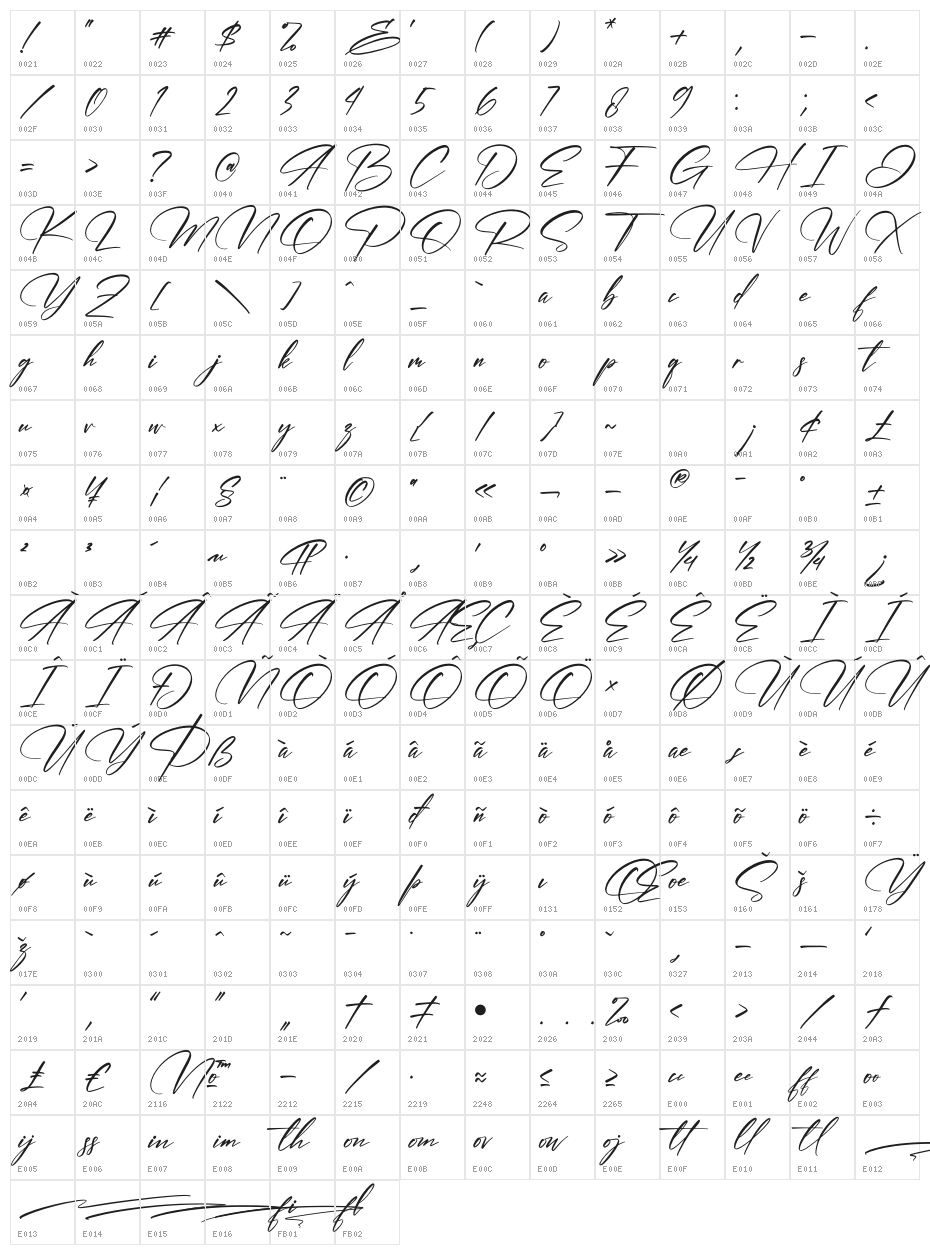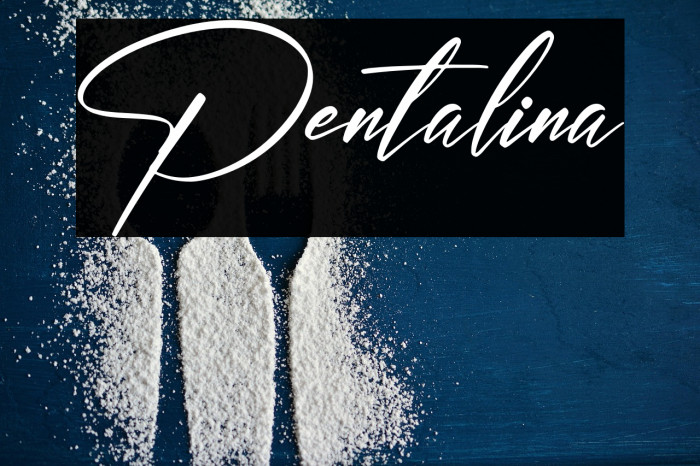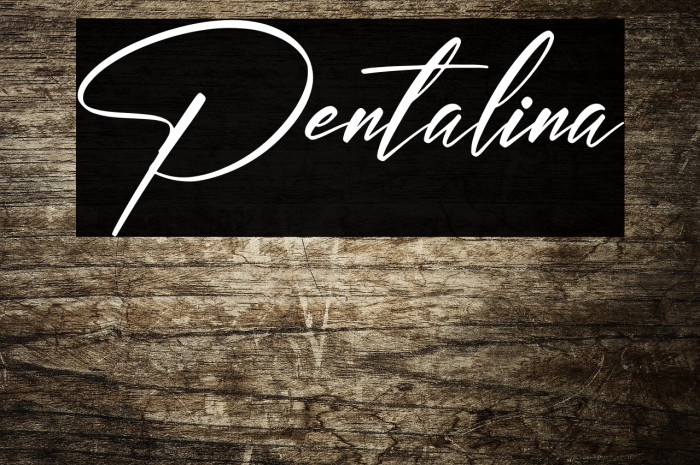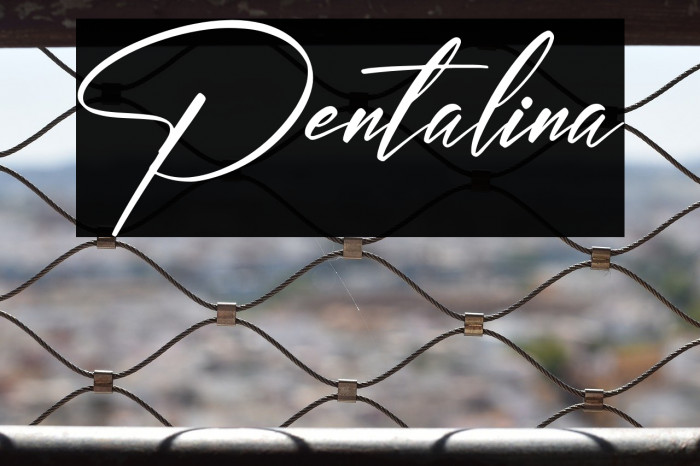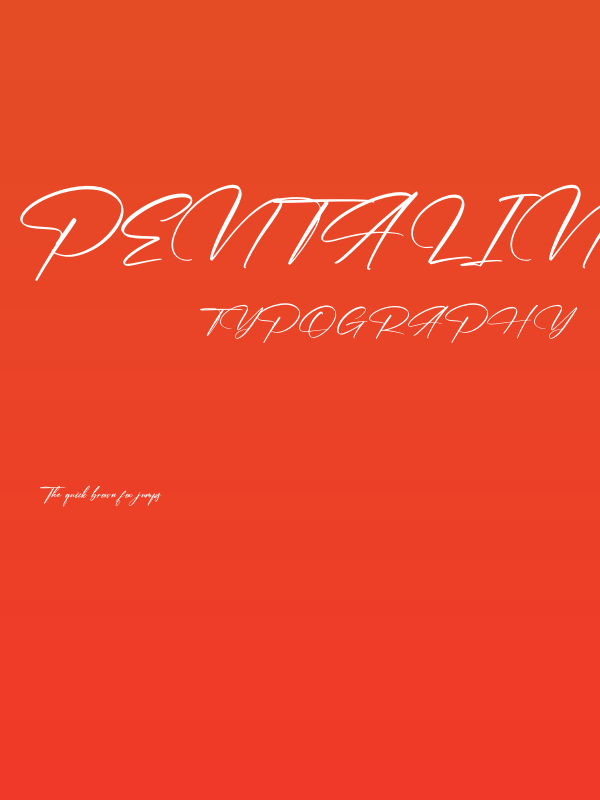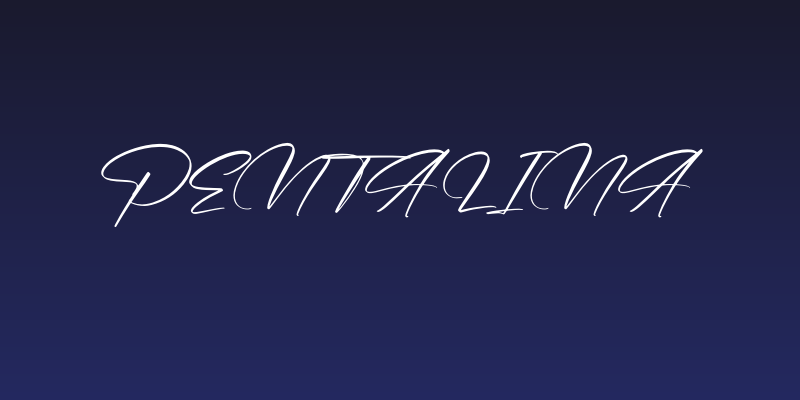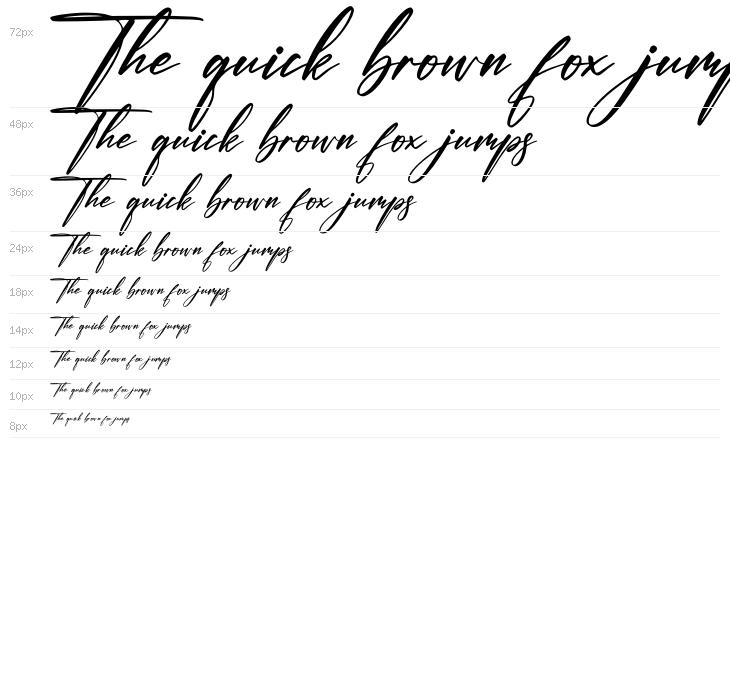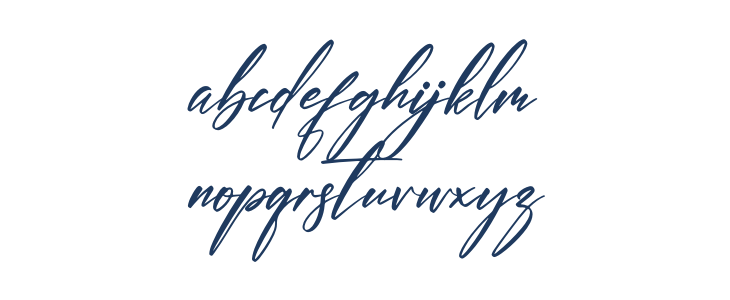
Pentalina Font
Pentalina Description
This font exudes elegance and sophistication with its fluid, cursive style. The uppercase letters are gracefully elongated, with sweeping curves that give a sense of motion and fluidity. The lowercase letters maintain a consistent flow, enhancing readability while retaining an artistic flair. The numbers are stylishly integrated, matching the overall aesthetic with their smooth, flowing lines. Special characters are thoughtfully designed, complementing the alphabet with their unique yet harmonious forms. This font is perfect for projects that require a touch of elegance and creativity.